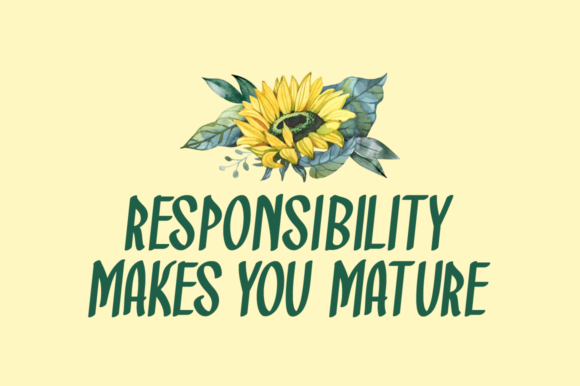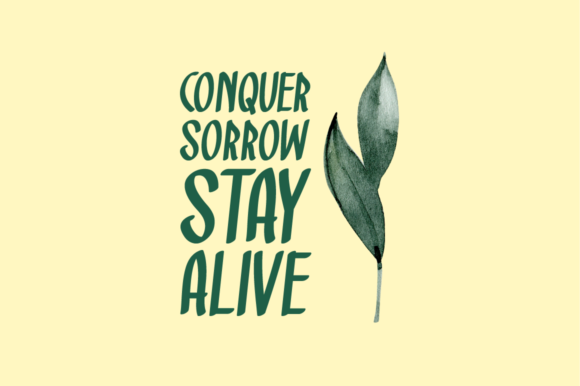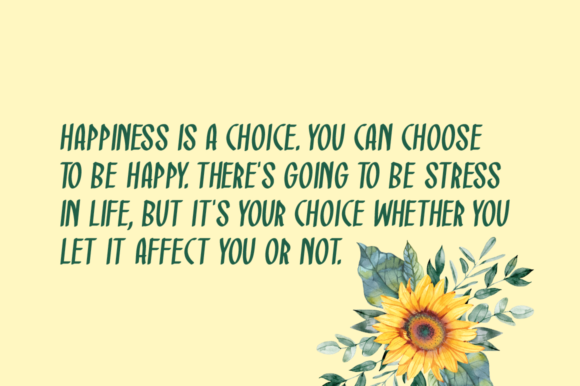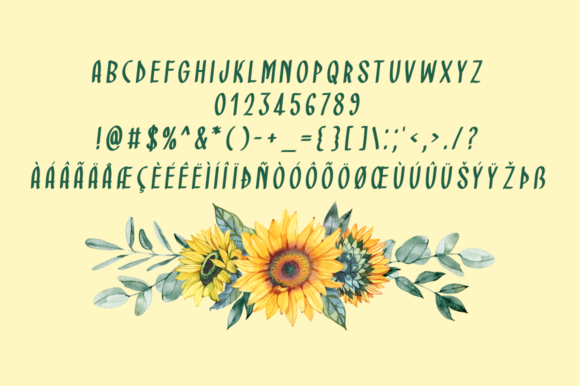
Introduction to Obligation Font
As designers, we’ve all been there – staring at a blank canvas, struggling to find the perfect font to bring our creative project to life. It’s in these moments that we turn to our trusty design resources, hoping to find that one font that will make our vision stand out. For those seeking a fresh and playful touch, the Obligation Font is an excellent choice.
This adorable display font is designed to add a casual, yet stylish flair to any design. With its wide range of applications, from digital projects to print materials, the Obligation Font is an invaluable addition to any designer’s library. Whether you’re working on a free download or a high-quality commercial project, this font is sure to elevate your design to the next level.
Key Features of Obligation Font
- Unique, modern design with transparent background for flexibility in design
- Available in multiple sizes, including small caps and large caps, for versatility
- Supports a wide range of languages, making it suitable for global creative projects
- Perfect for designers and artists looking for a unique, high-quality font for their next creative project
Honest Review: Obligation Font
As a designer, I’m always on the lookout for new and exciting design resources to elevate my creative projects. Recently, I stumbled upon the Obligation Font, and I must say, it’s been a game-changer. ✨
The Obligation Font is a free download that’s perfect for any project that requires a modern, clean look. With a transparent background, it’s incredibly versatile and can be used in a variety of creative applications. From logos to brochures, this font is sure to make a statement.
Here are some of the features that I love about the Obligation Font:
- High-quality design that’s perfect for professional projects
- Easy to read and use, even in small font sizes
- Transparent background makes it easy to customize
- Only comes in a limited range of weights and styles
- May not be suitable for projects that require a lot of bold or dramatic typography
Overall, I’m thoroughly impressed with the Obligation Font. It’s a fantastic addition to any designer’s toolkit, and I highly recommend it for any creative project that requires a clean, modern look. ⚠️ With a few minor limitations, this font is sure to become a staple in your design arsenal.
How to Use Obligation Font
Designing with a Transparent Background
The Obligation Font has a transparent background, making it ideal for designing graphics with layered elements. When using it in your design, ensure that the background is set to transparent to maintain the desired effect.
High-Quality Output
The Obligation Font is designed to provide high-quality output, making it suitable for creative projects that require precision and clarity. To achieve the best results, use the font in conjunction with high-resolution images and graphics.
To get the most out of the Obligation Font, use it in conjunction with other design elements to create visually appealing graphics. Experiment with different font sizes, colors, and styles to find the perfect combination for your creative project.
The Obligation Font is commonly used in various design projects, including logos, business cards, brochures, and social media graphics. Its versatility and high-quality output make it an ideal choice for designers and non-designers alike.